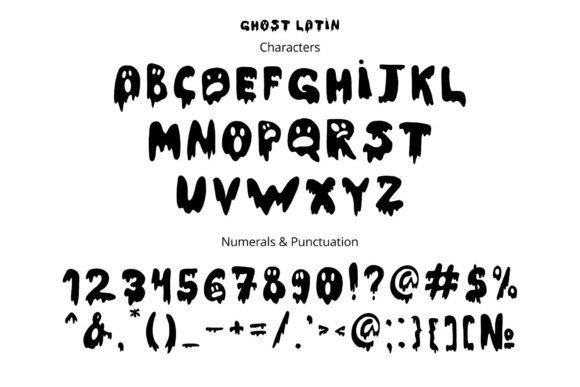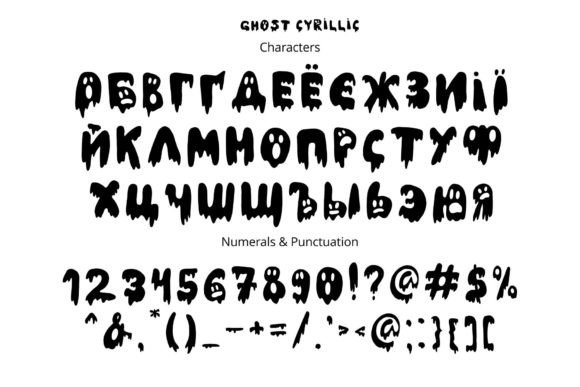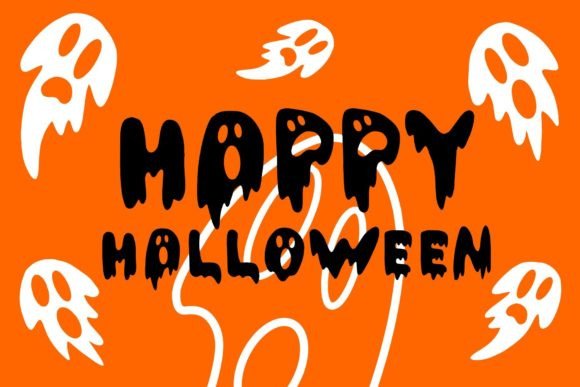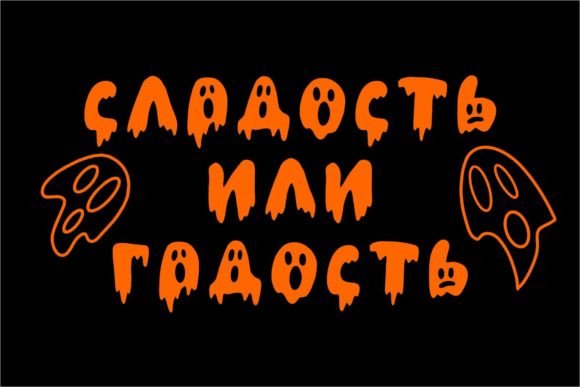
Unleash the Spookiness: Exploring the Ghost Font for Your Halloween Creations
As the spookiest time of the year approaches, designers and crafters are on the lookout for the perfect font to add a touch of eeriness to their Halloween-themed projects. Look no further than the Ghost Font, a scary yet fun display font that’s sure to cast a spell on your audience. In this article, we’ll dive into the world of Ghost Font, exploring its unique characteristics, uses, and benefits for your Halloween creations.
What is Ghost Font?
Ghost Font is a display font designed to evoke the spirit of Halloween. Its spooky and mysterious design makes it perfect for creating eye-catching titles, headings, and phrases that will leave a lasting impression on your audience. Despite its eerie feel, Ghost Font still maintains a friendly accent, making it suitable for a wide range of applications, from party invitations to social media graphics.
Key Features of Ghost Font
- Unique lettering style: Ghost Font boasts a distinctive lettering style that’s both spooky and elegant. Its intricate details and curved lines create a sense of movement and fluidity, making it perfect for display text.
- Versatile design: Ghost Font is designed to be versatile, making it suitable for various applications, including posters, flyers, social media graphics, and more.
- Easy to read: Despite its ornate design, Ghost Font is surprisingly easy to read, making it perfect for titles, headings, and short phrases.
Uses for Ghost Font
Ghost Font is perfect for a wide range of Halloween-themed projects, including:
- Party invitations: Create spooky and inviting party invitations that will set the tone for your Halloween bash.
- Social media graphics: Use Ghost Font to create eye-catching social media graphics that will grab the attention of your followers.
- Posters and flyers: Design striking posters and flyers that will promote your Halloween events or products.
- Halloween-themed crafts: Add a touch of spookiness to your Halloween-themed crafts, such as DIY decorations, cards, and gift tags.
Tips for Using Ghost Font
To get the most out of Ghost Font, follow these tips:
- Use it sparingly: Ghost Font is designed to make a statement, so use it sparingly to avoid overwhelming your design.
- Experiment with colors: Try pairing Ghost Font with different colors to create a unique and eye-catching effect.
- Combine with other fonts: Combine Ghost Font with other fonts to create a contrasting effect and add visual interest to your design.